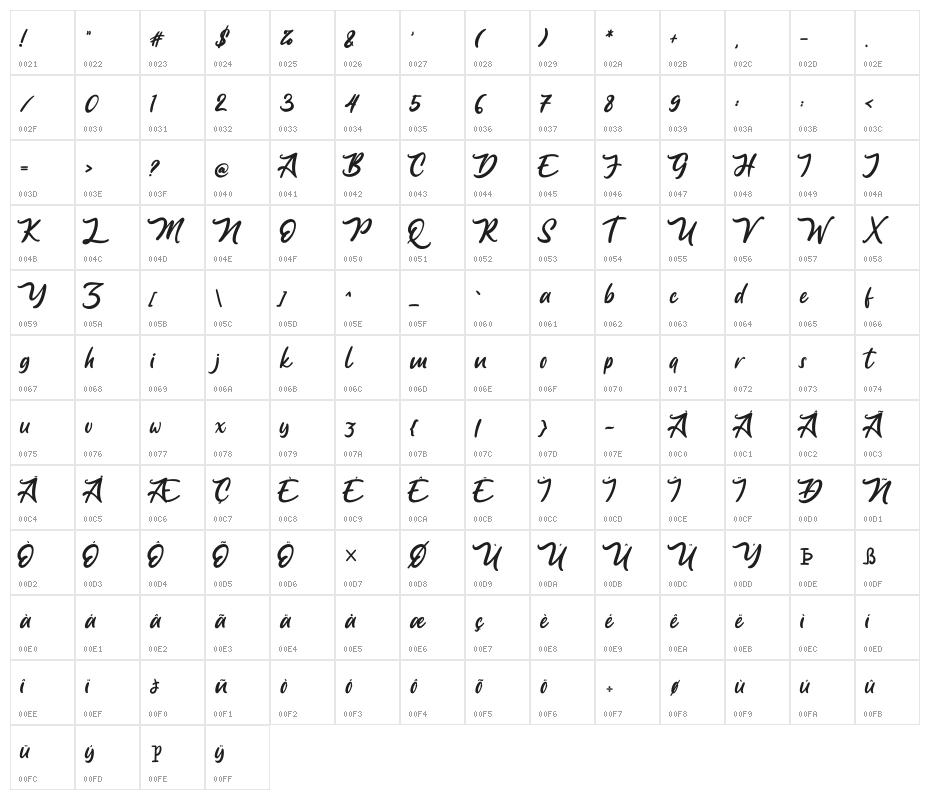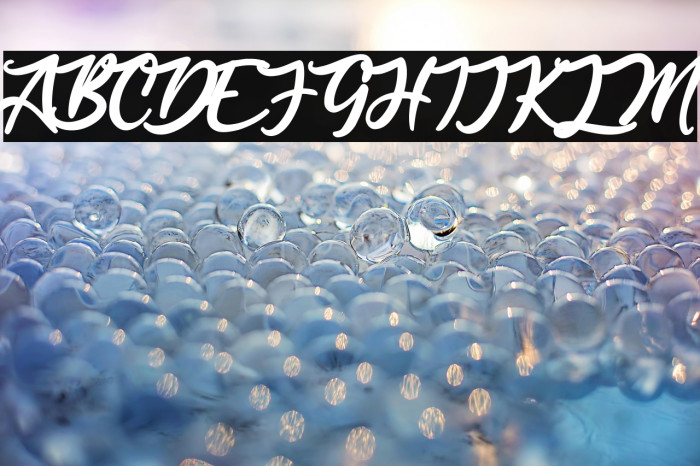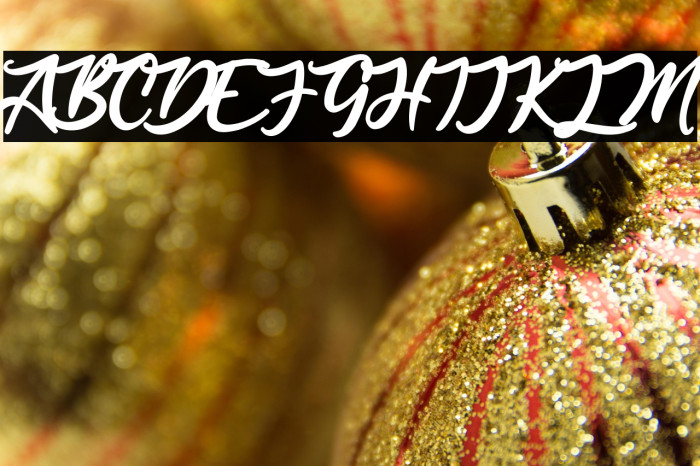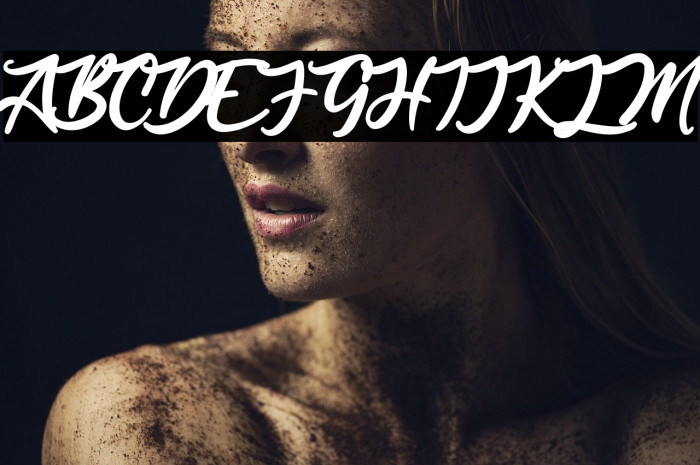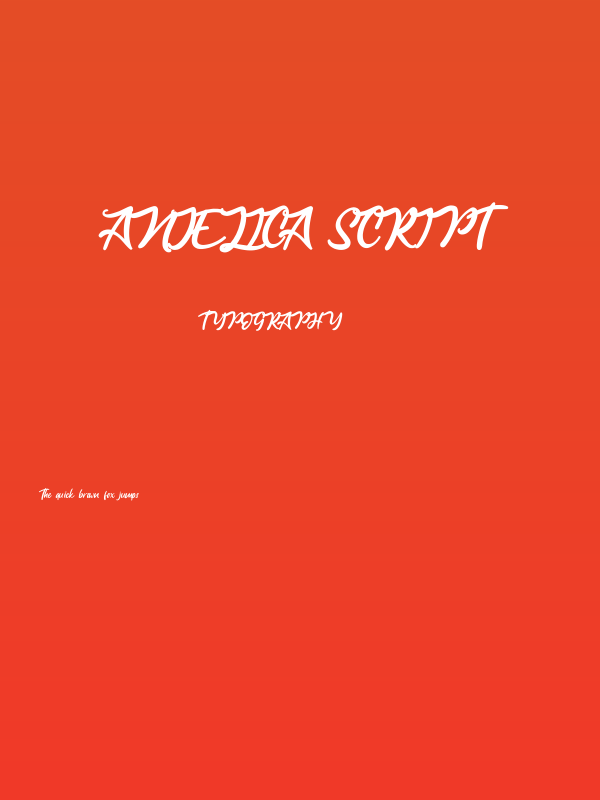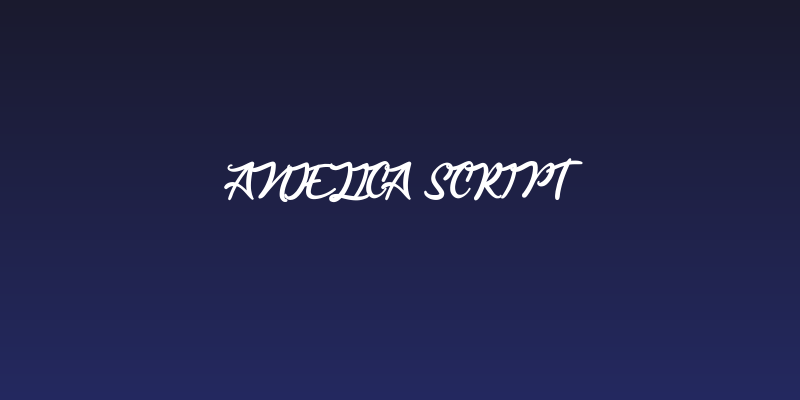
Anjelica Script Font
Anjelica Script Description
This font exhibits a flowing, cursive style that is both elegant and dynamic. The characters are interconnected, creating a seamless and fluid appearance. The uppercase letters are bold and sweeping, with distinctive loops and curves that add a sense of movement. The lowercase letters maintain a consistent flow, with rounded edges and smooth transitions between strokes. Numbers and special characters are designed to complement the script style, maintaining the same fluidity and elegance. This font is ideal for projects that require a personal touch or a sense of sophistication.
| Overall Style | Elegant, Decorative |
| Proposed Projects | Ideal for wedding invitations, greeting cards, personal branding, and elegant logo designs. |